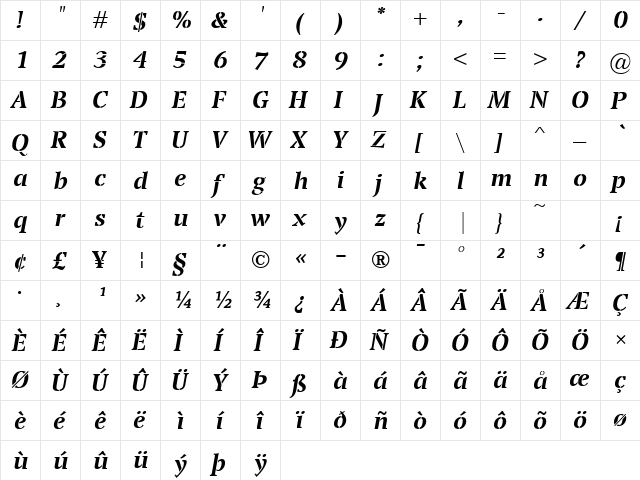
Transport BoldItalic
Design Context for Transport Typeface
Transport has the bold swagger of sports branding: strong, assertive letterforms designed to dominate headlines and jerseys alike. The dynamic lean of this cut emphasises speed and emphasis in any layout. The heavy weight commands attention and anchors typographic hierarchies.
Built for sports team identities, athletic apparel, event posters, and high-energy promotional material.
Pro Tip: Transport thrives on contrast — try it large, bold, and tight against a clean background for maximum visual impact.